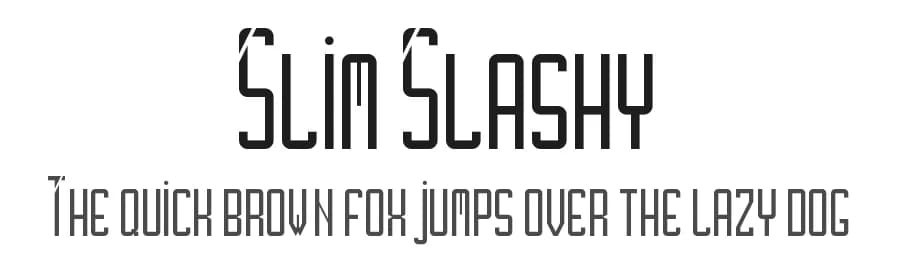
About Slim Slashy Font
Slim Slashy is a sans-serif font designed by Rikyozone. It includes 152 glyphs, a regular weight, TTF (TrueType) format, and 202 languages. Slim Slashy is free to download; check the license details on this page before commercial use. Sans-serif fonts like Slim Slashy work best for clean body text, user interfaces, branding, and modern layouts.
Slim Slashy Font is a versatile sans-serif font that works for both headings and body text. Pair it with a contrasting serif or slab serif font to add visual interest and a clear distinction between titles and body copy.
Slim Slashy Font
by Rikyozone
Slim Slashy Font is a sans serif typeface by Rikyozone, ideal for logos, invitations, branding, and creative projects.